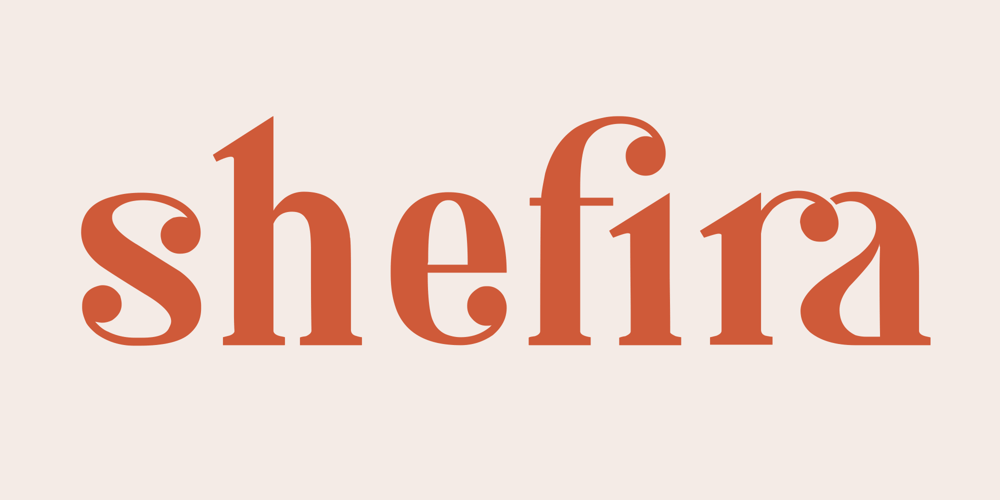
Shefira Font Family was designed by Faizul Muna and published by Unitype Studio. Shefira contains 1 styles and family package options. Shefira is a modern and elegant serif font. It is a super unique ligature font that you wont forget! Shefira was built with OpenType features and includes more than 56 ligatures, alternate, numbers, punctuation, and it also supports other languages.It’s the perfect fit for all luxury projects, such as wedding invitation, signatures, luxury logos, printed quotes, grettings cards, social media headers, product packaging and many more!